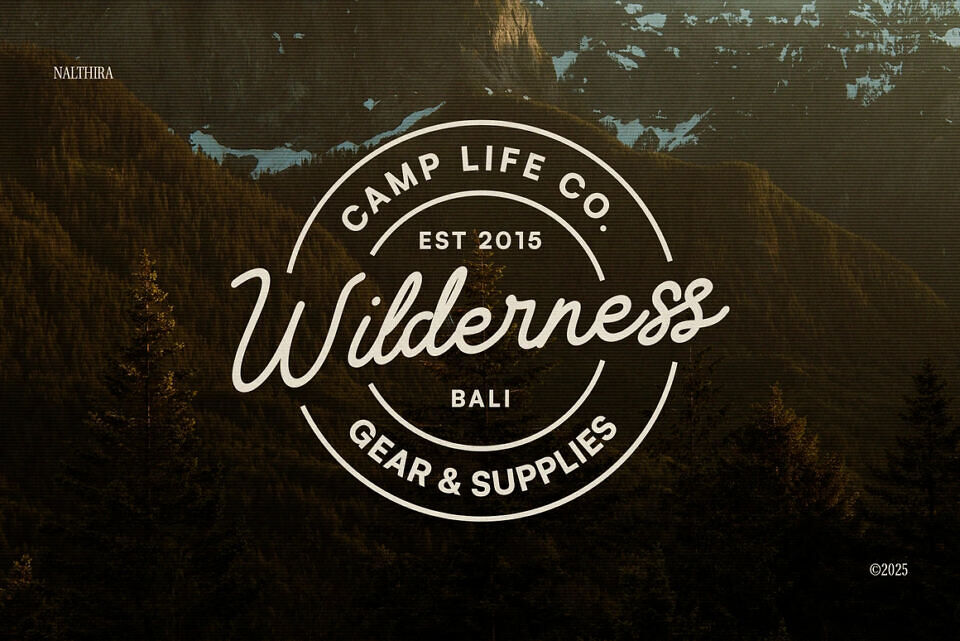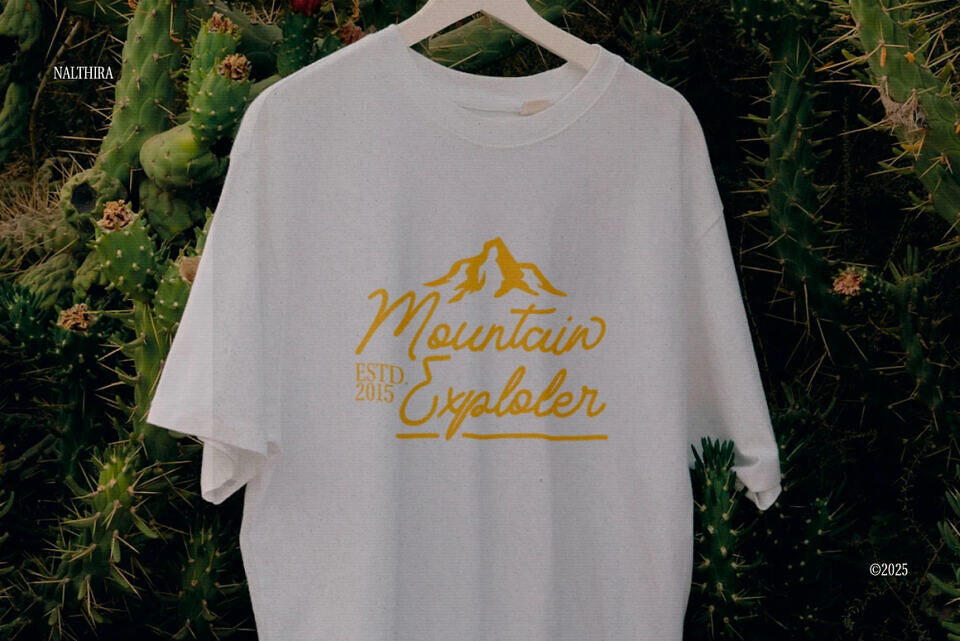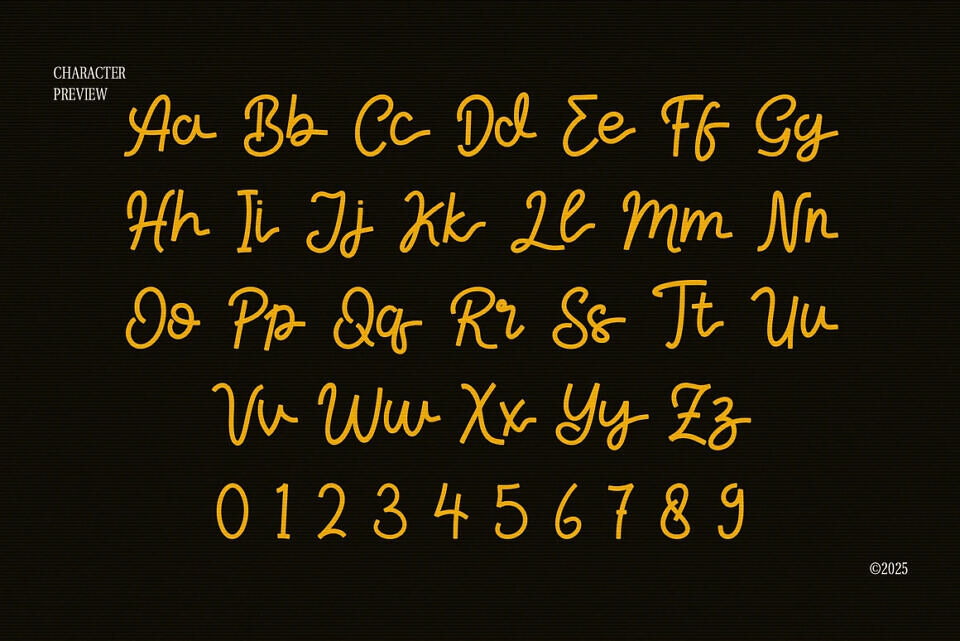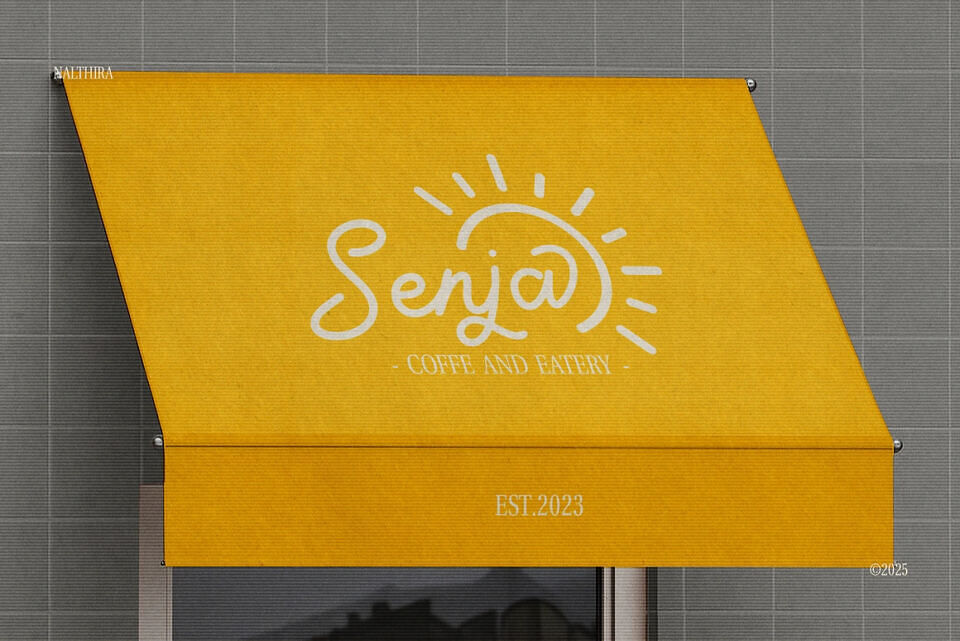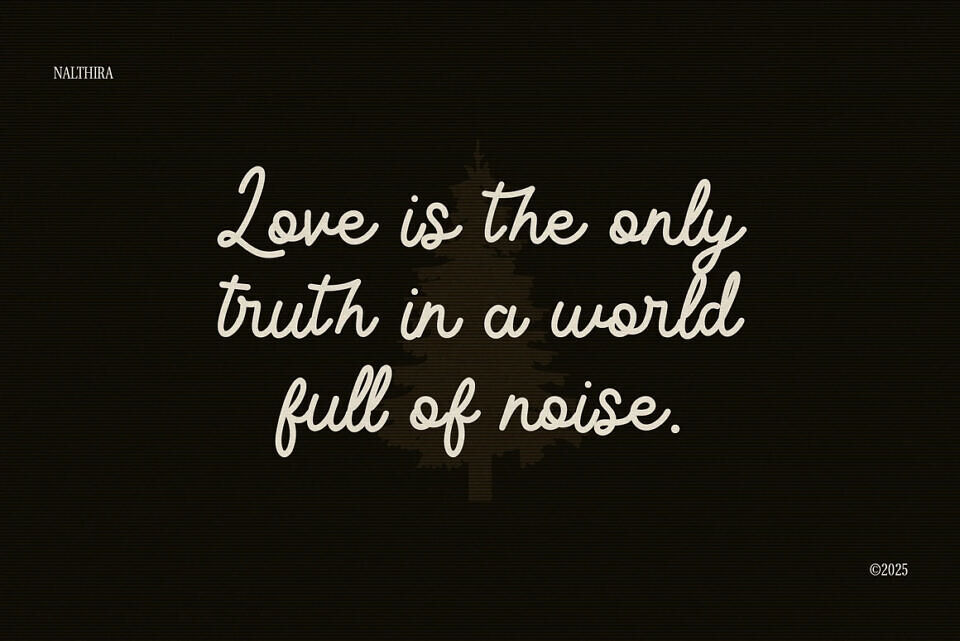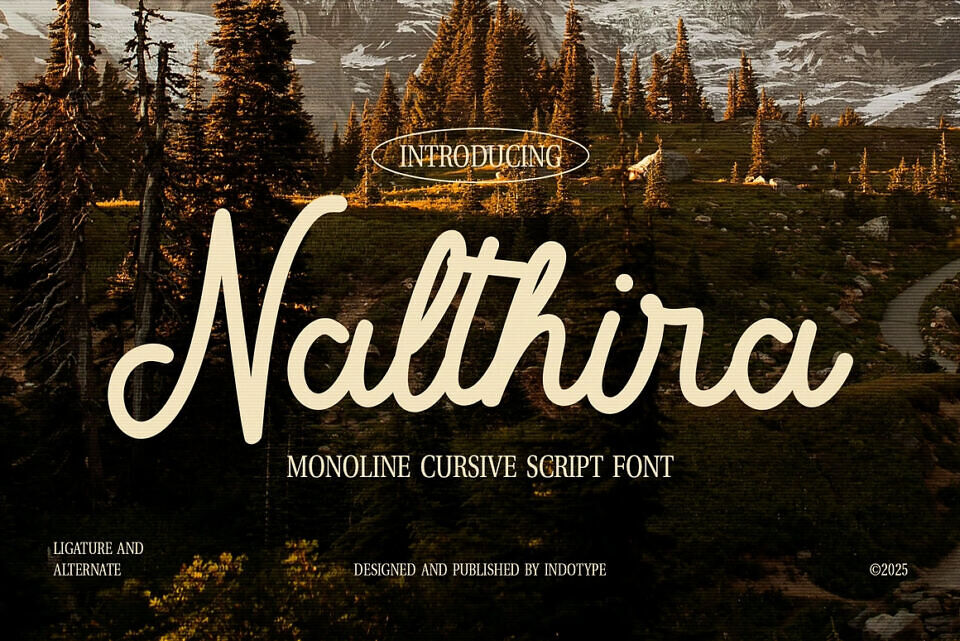
It Nalthira Font
Nalthira is a monoline cursive script font designed to bring warmth, elegance, and flow to your projects. With its smooth, single-line strokes and naturally connected letters, Nalthira captures the charm of traditional cursive handwriting while maintaining modern clarity.
Equipped with ligatures and alternates, this typeface offers flexibility and stylistic variety, allowing you to create unique wordmarks and expressive lettering. Its balance of casual and refined makes Nalthira a perfect choice for logos, wedding invitations, personal branding, packaging, greeting cards, lifestyle products, and editorial designs.